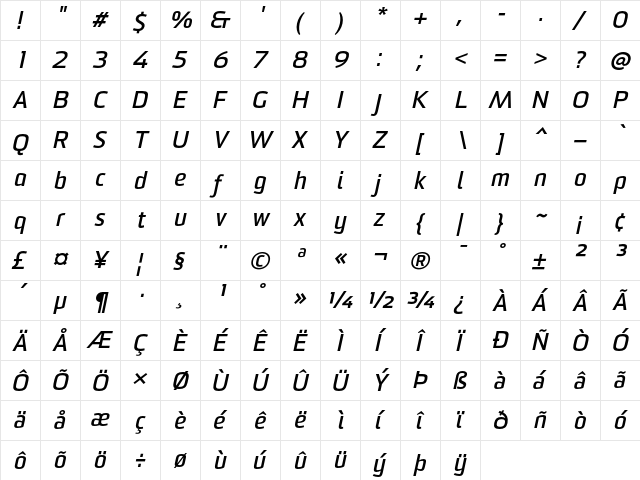
Sommet Bold Italic Bold Italic
Design Context for Sommet Bold Italic Typeface
Sommet Bold Italic takes a measured approach to typography — its balanced proportions and neutral character make it a reliable workhorse for both digital and print work. The dynamic lean of this cut emphasises speed and emphasis in any layout. Its bold stroke weight gives it real presence on the page.
Pro Tip: Use Sommet Bold Italic for emphasis, pull quotes, and subheadings where its slanted energy can add rhythm to the layout.